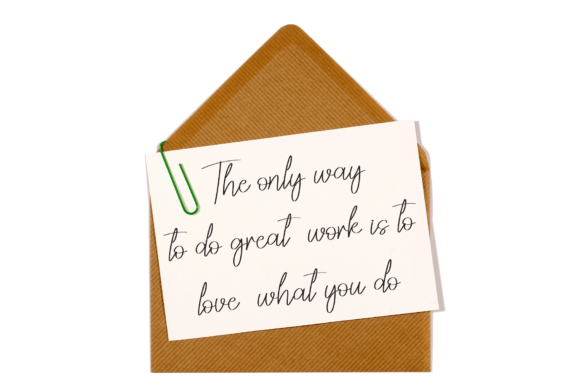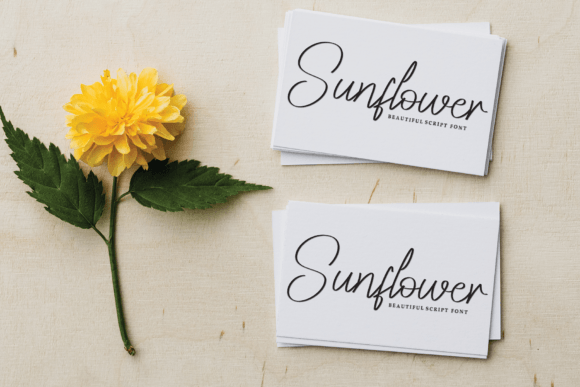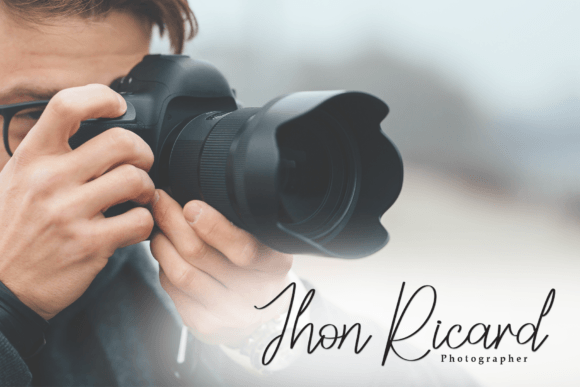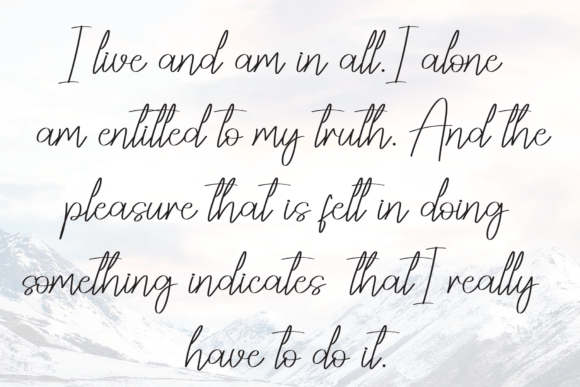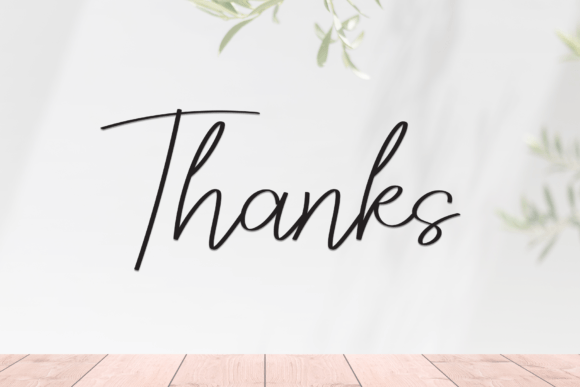
Introduction to Question Font
Have you ever stared at a blank page, feeling like your creative project is stuck in neutral? You’ve got a vision, but the words just aren’t flowing. That’s when you need a trusty design resource to spark your imagination. For many designers, that resource is the beautiful Question Font.
With its elegant, handwritten style and calligraphic influences, Question Font is the perfect choice for adding a touch of sophistication to your designs. Whether you’re working on a branding project, creating a wedding invitation, or crafting a social media post, this high-quality font is sure to elevate your work. And the best part? It’s available for free download, making it an accessible design asset for creatives of all levels.
Key Features of Question Font
- Unique and customizable font styles, suitable for a wide range of applications.
Honest Review: Question Font
I recently stumbled upon Question Font and I must say, it’s been a game-changer for my creative projects. The free download is a great resource for designers who are looking to add some flair to their designs.
- High-quality design: The Question Font is well-designed, with a clean and modern aesthetic that’s perfect for any creative project.
- Transparent background: The transparent background option makes it easy to overlay the font on any image or design, giving me more flexibility in my design process.
- Limited character set: The Question Font only includes a limited character set, which can be a problem if you need to use special characters in your design.
- No bold or italic options: While the font is great for regular text, I wish there were more options for bold or italic text.
Overall, I’m impressed with Question Font and would recommend it to any designer looking for a high-quality, free design resource.
Question Font is a versatile design resource that can be used in a variety of creative projects, including:
Infographics, posters, and flyers.
Presentations and reports.
Business cards and brochures.